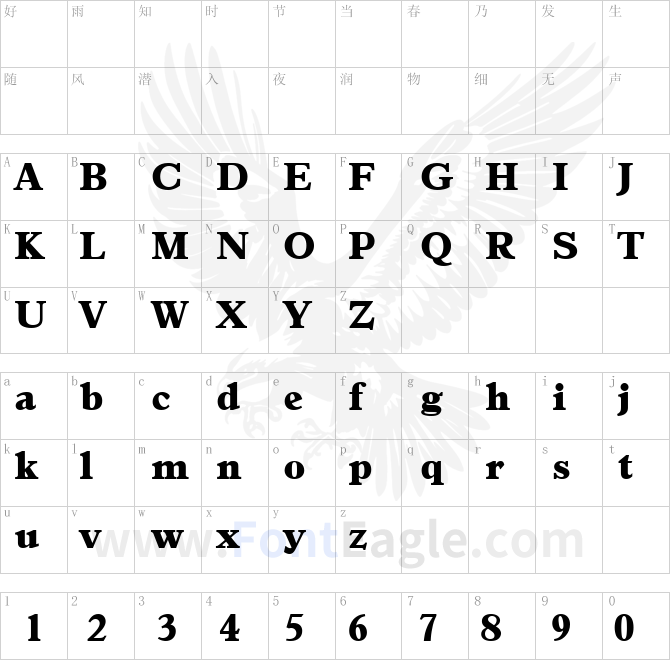
ColinBecker-Heavy is a great font, widely used in graphic design, single-page menu design, poster design and other fields, and is deeply loved by designers.ColinBecker-Heavy download.